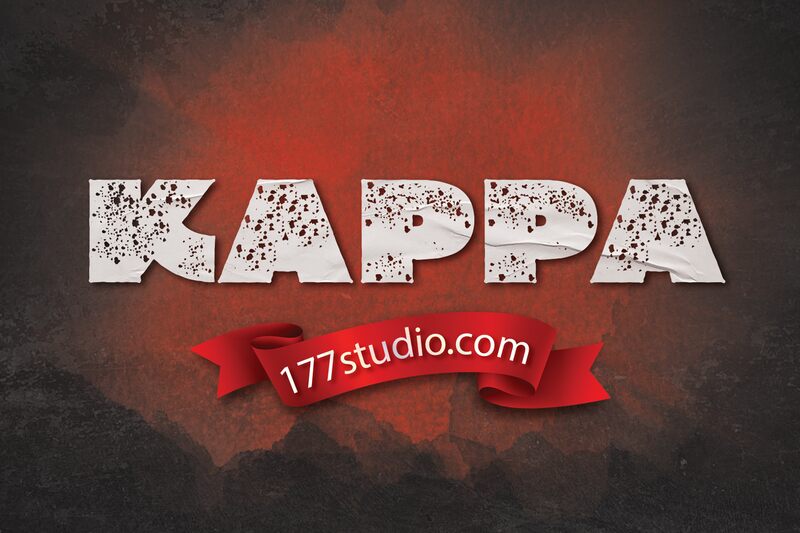
KAPPA Regular
KAPPA is a bold and wide eroded display font by 177Studio.com. Its rugged and distressed style makes it perfect for designs that require a rough and edgy touch, such as vintage logos, grunge posters, and distressed t-shirts. Add a touch of rawness to your designs with the worn-out texture of KAPPA.